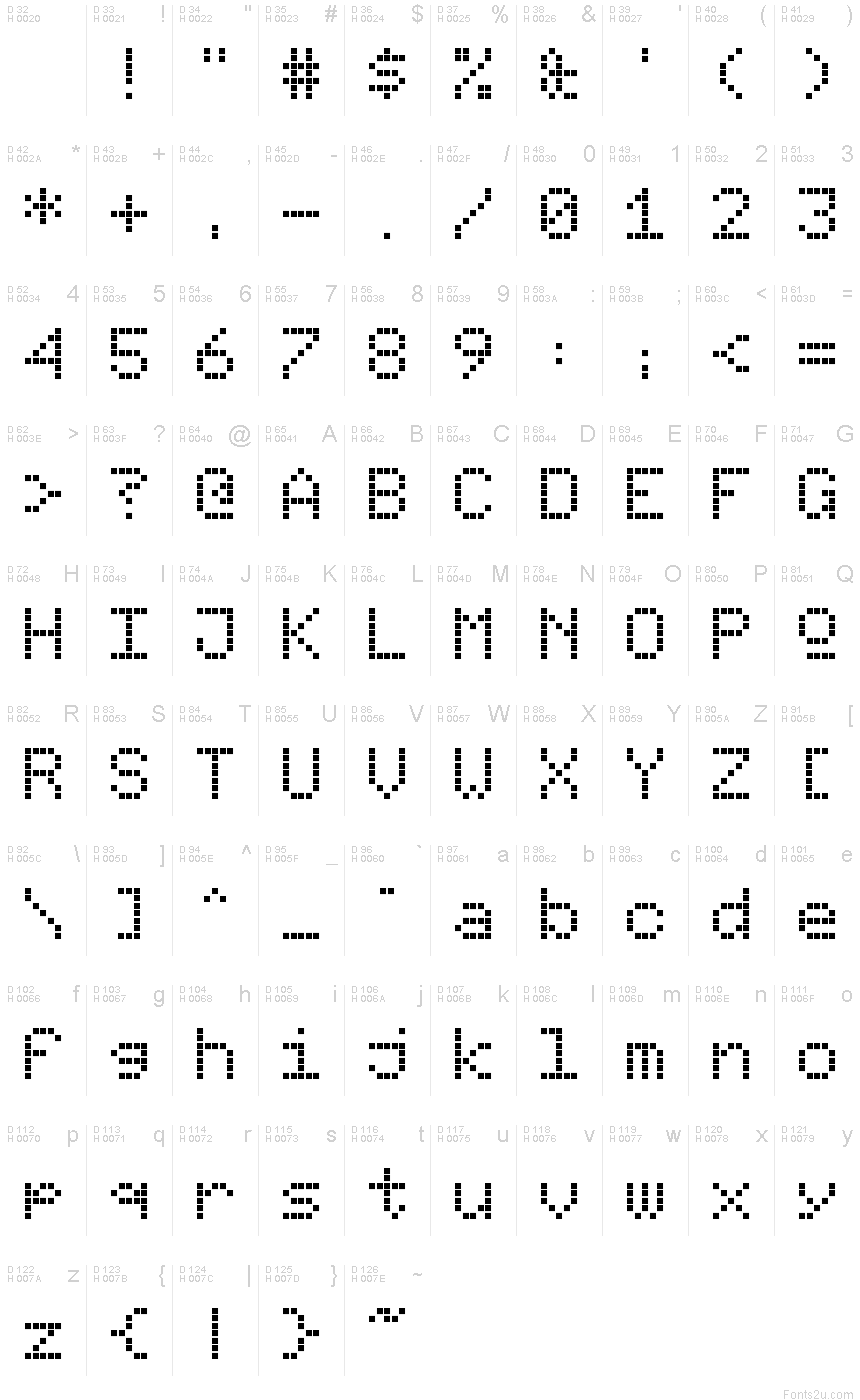
écran monochrome / monochrome display Regular
cran Monochrome (monochrome screen in french) is a font for a display with 7 by 5 pixels width for each character.